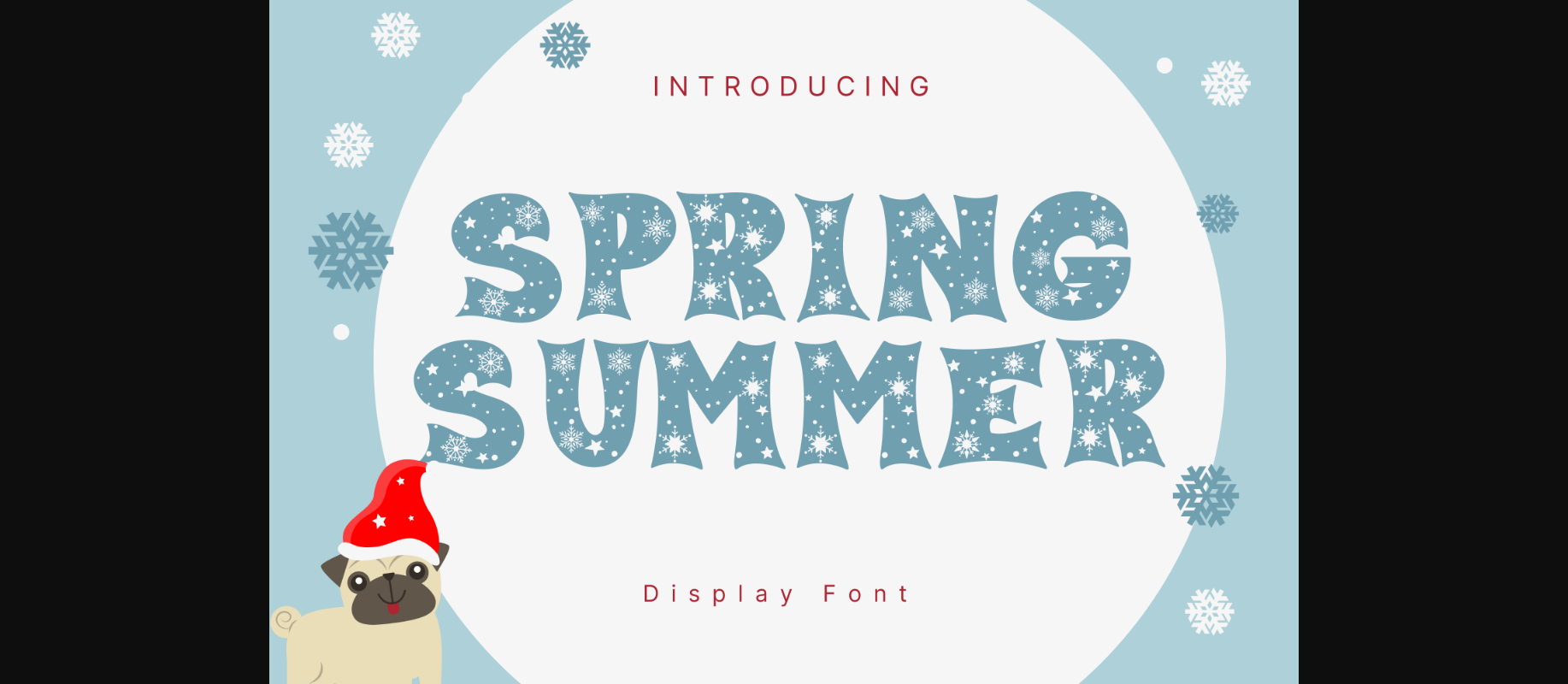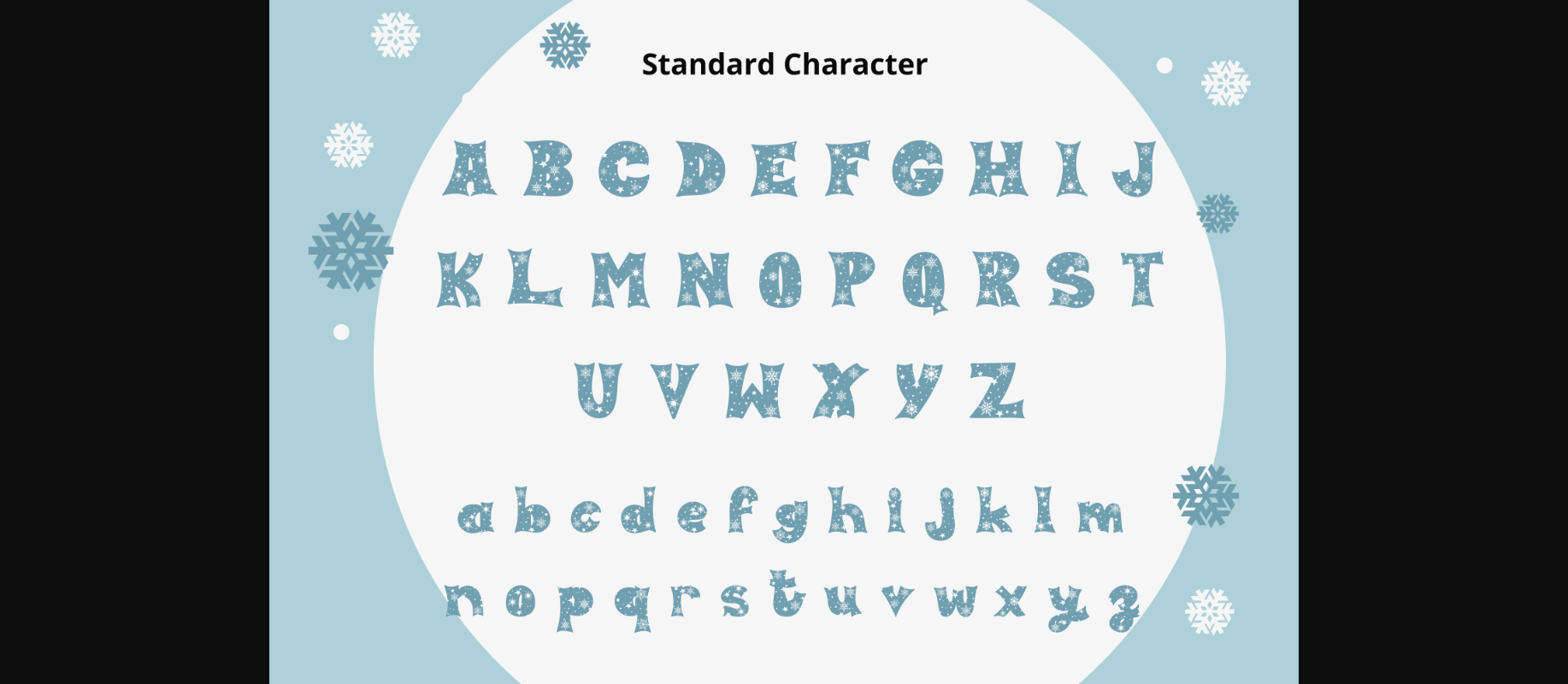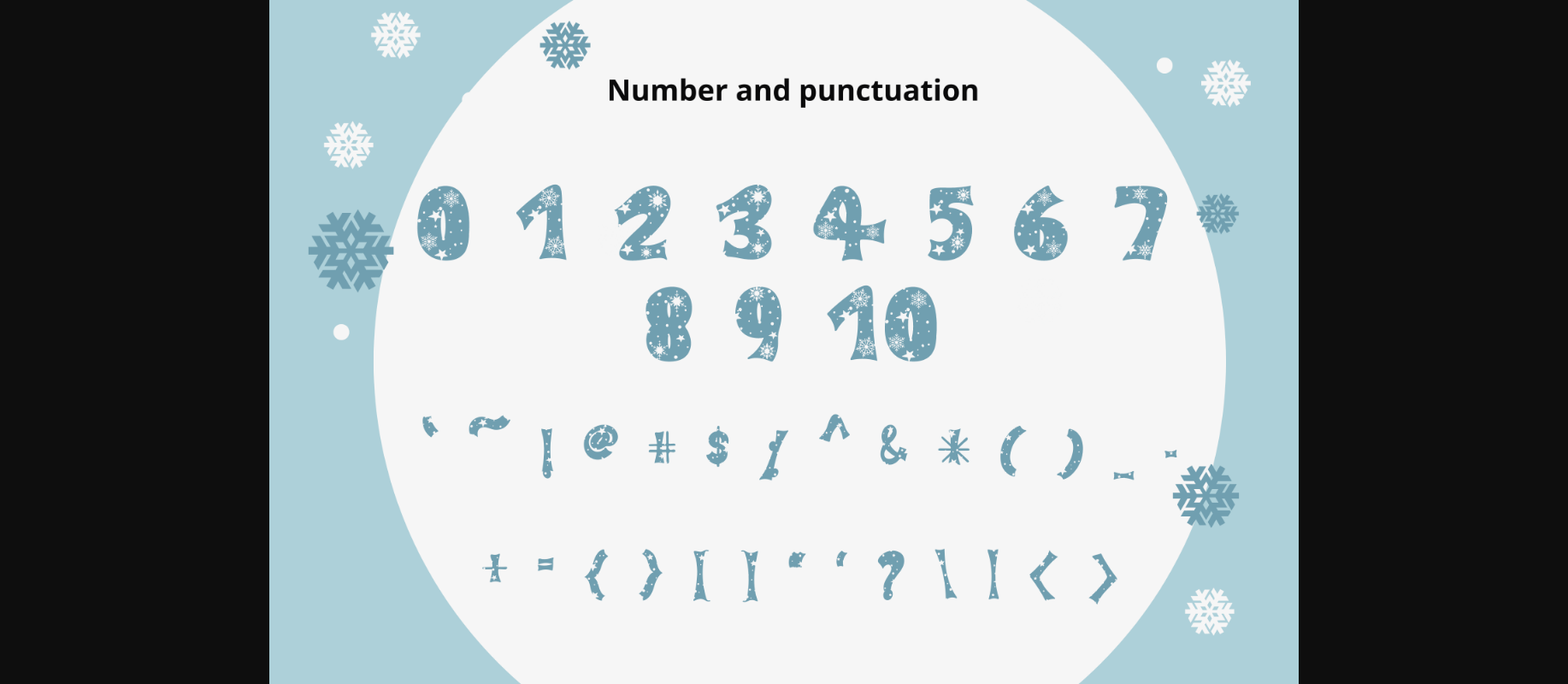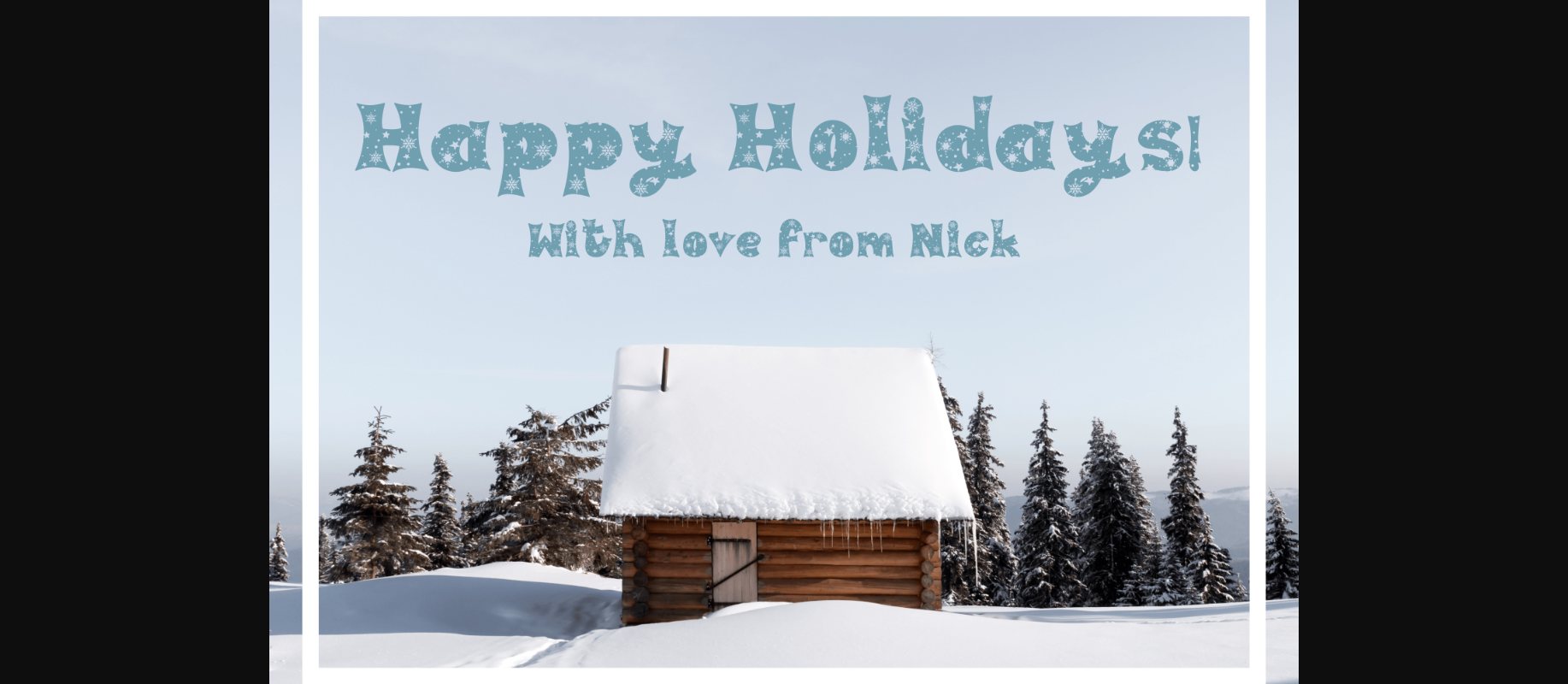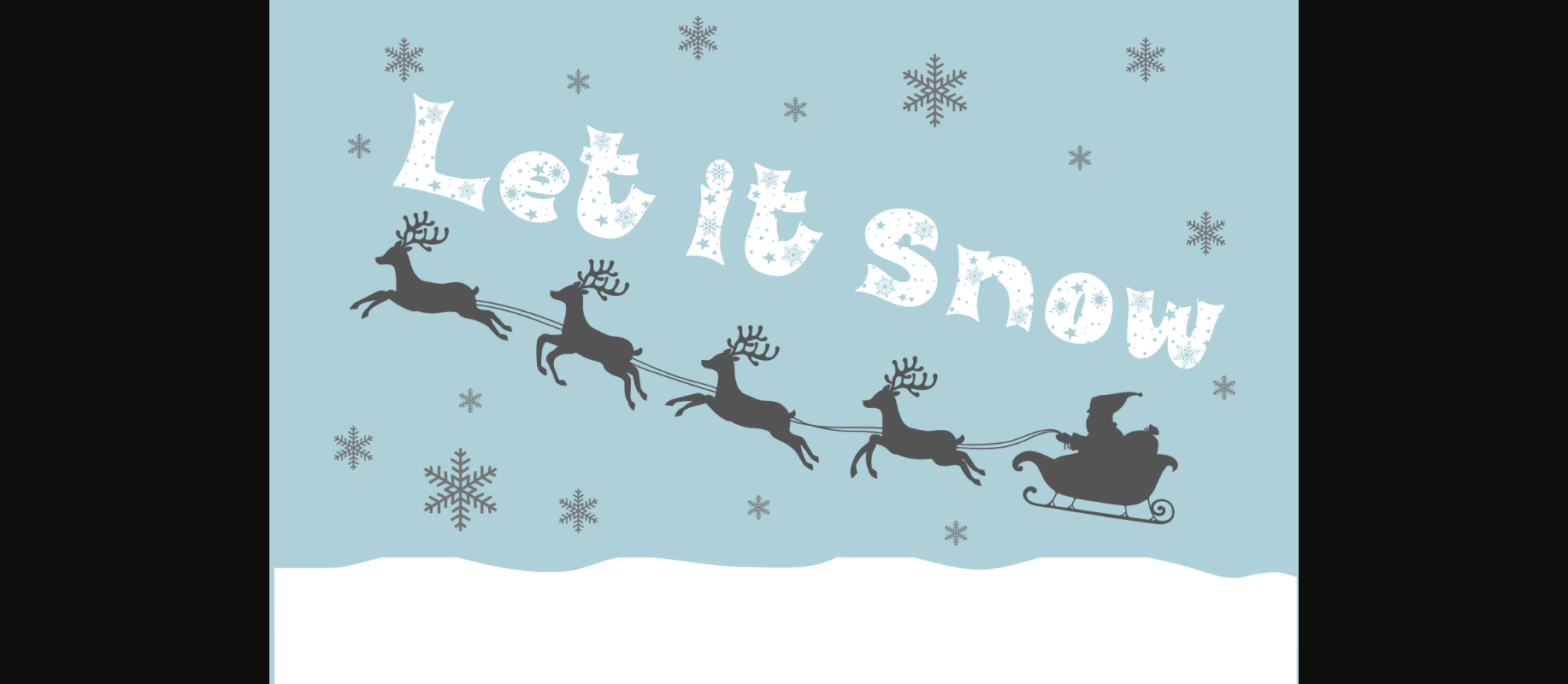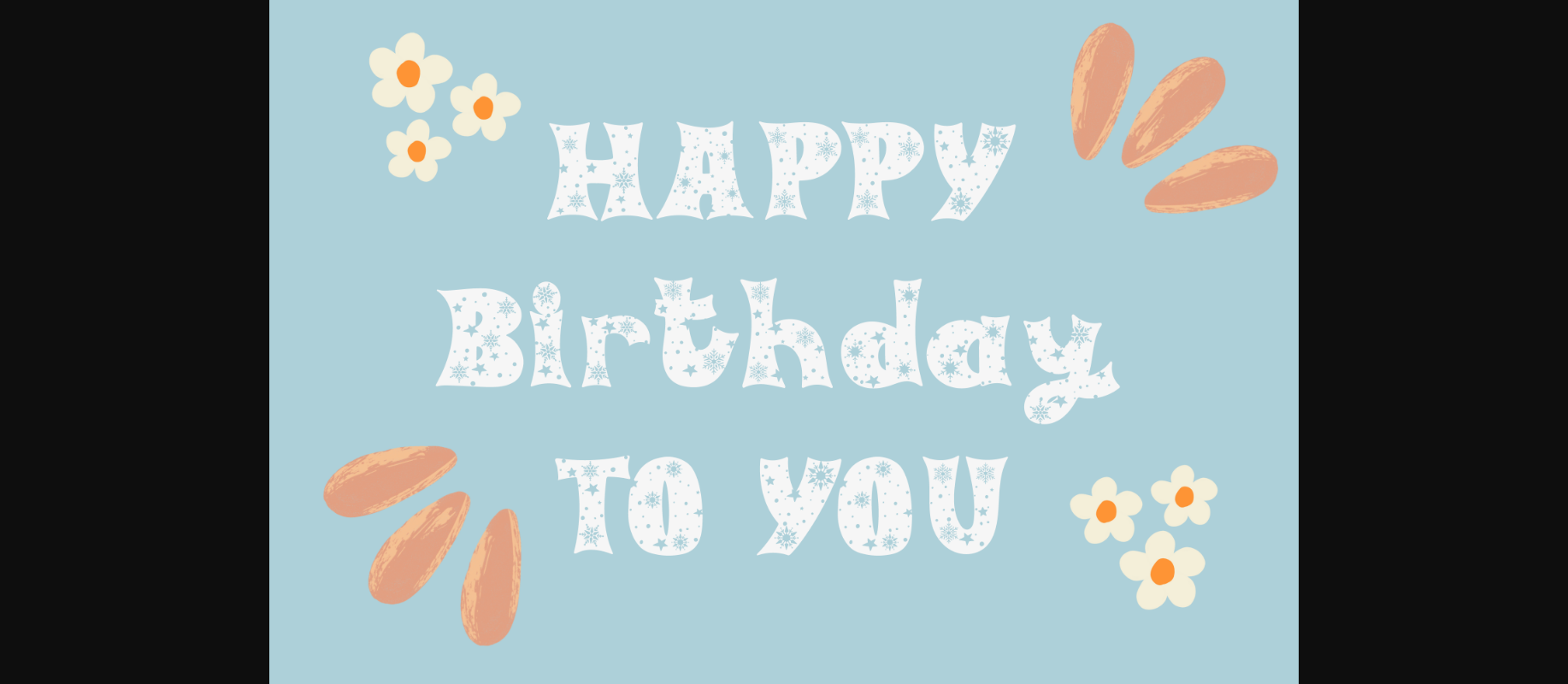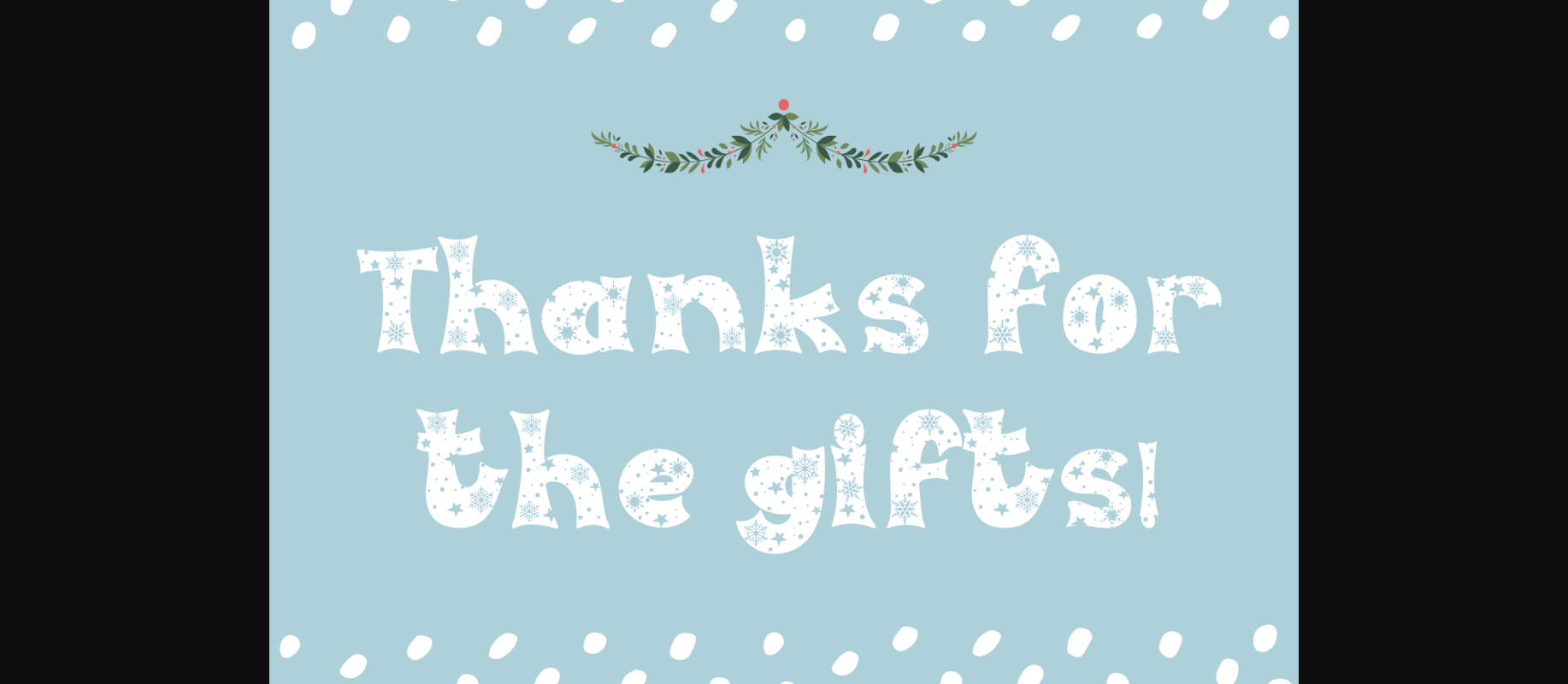
Spring Summer Font
About Spring Summer Font
Spring Summer is a whimsical and wintery decorative font. It can easily be matched to an incredibly large set of projects, so add it to your creative ideas and notice how it makes them stand out!